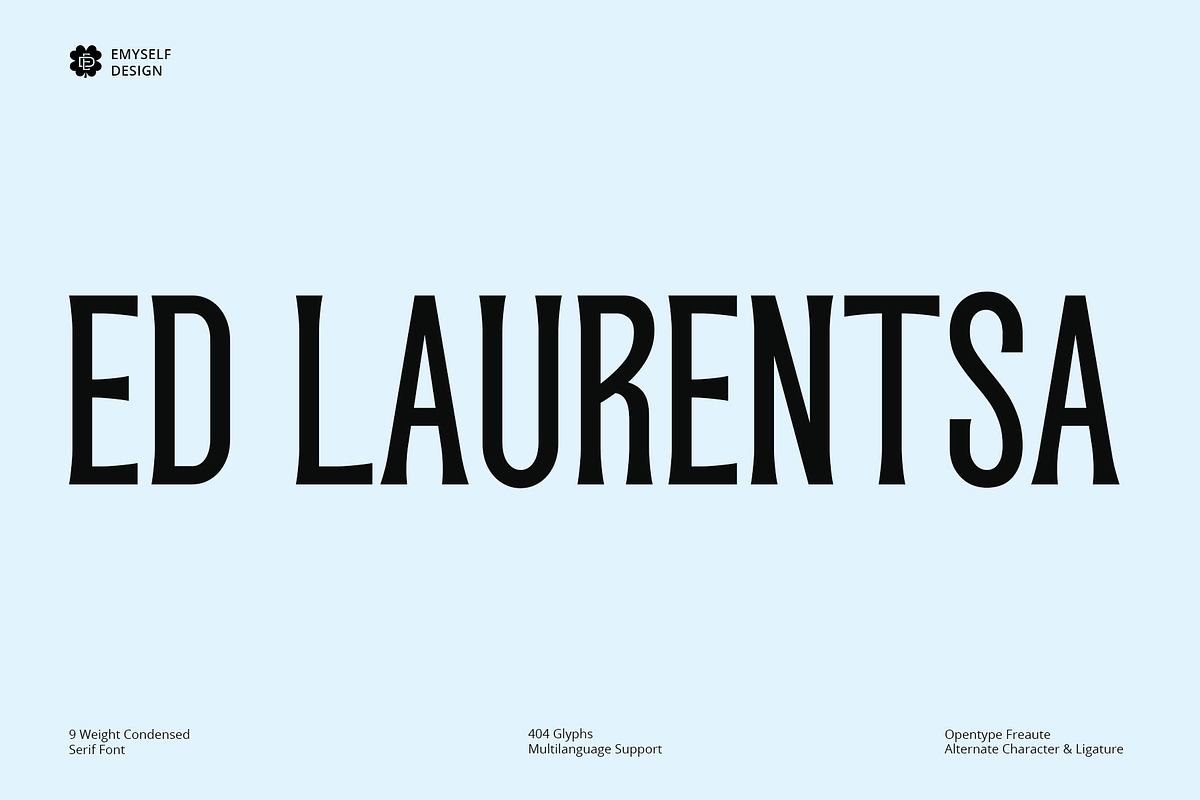
ED Laurentsa Font Free Download is a stylish and sophisticated typeface with elegant curves and a modern flair. Featuring clean lines and smooth transitions, Laurentsa is perfect for luxury branding, high-end logos, editorial design, invitations, and upscale marketing materials.
This font balances both classic and contemporary elements, making it versatile for a wide range of design projects. Whether you’re working on wedding invitations, fashion branding, or premium product packaging, ED Laurentsa adds a refined and chic touch to your typography.